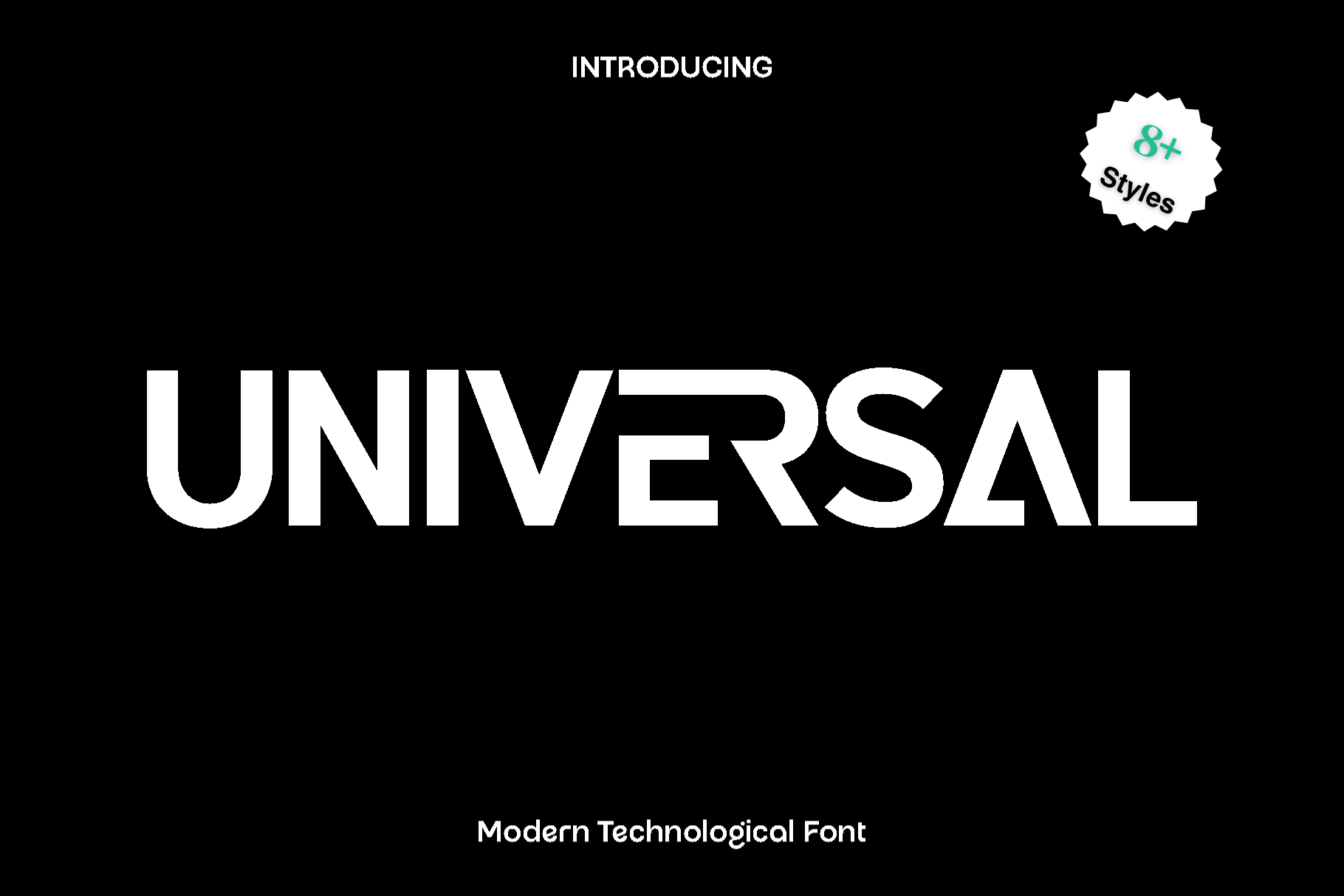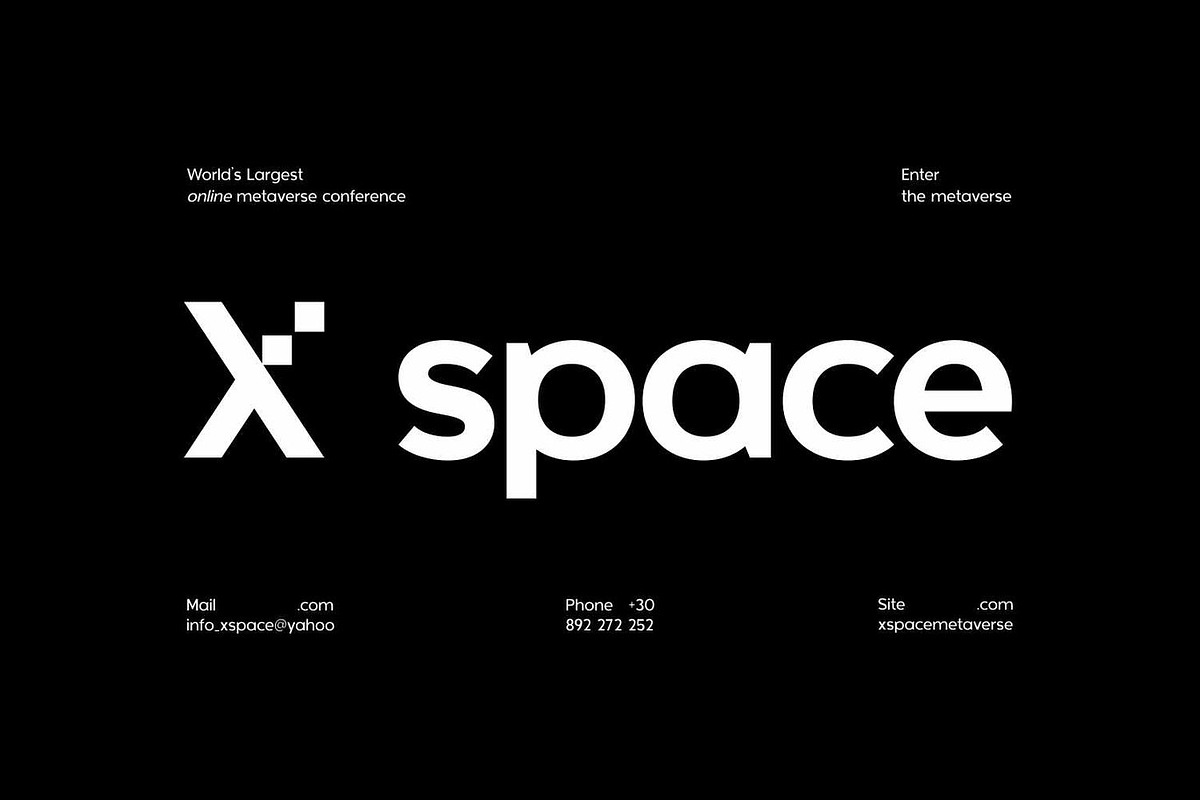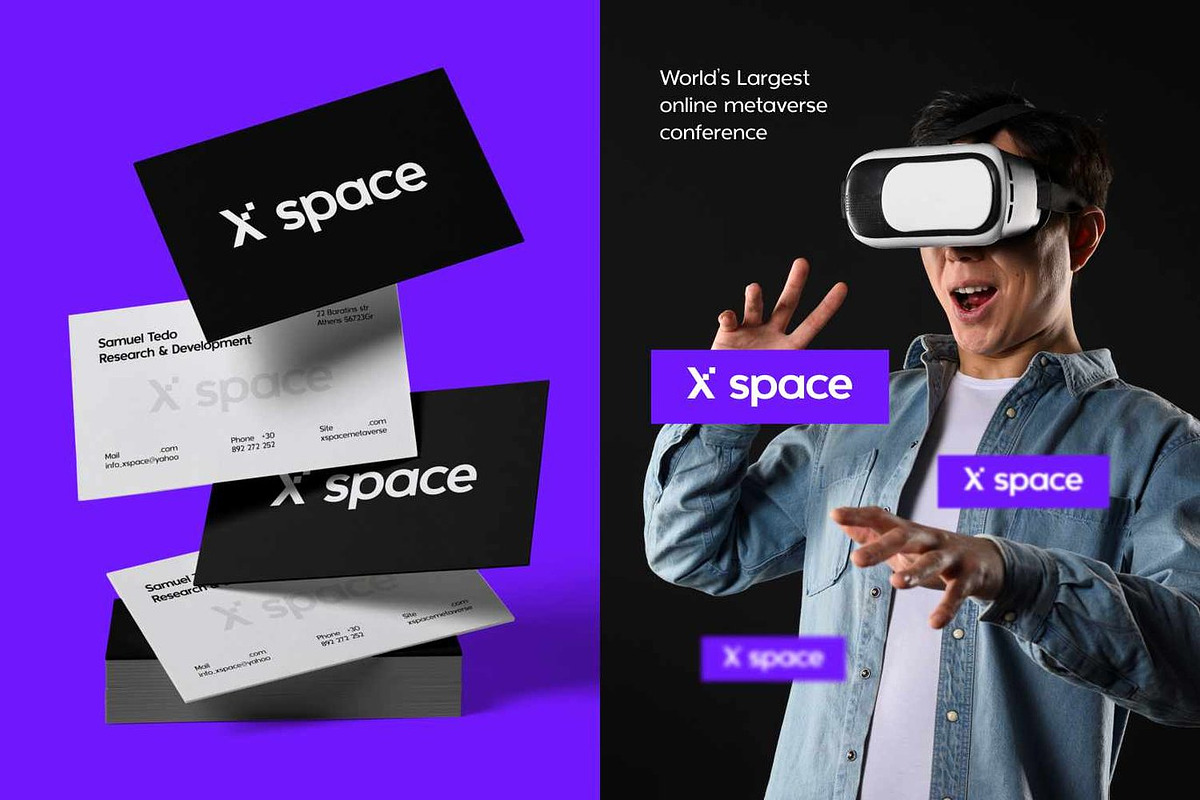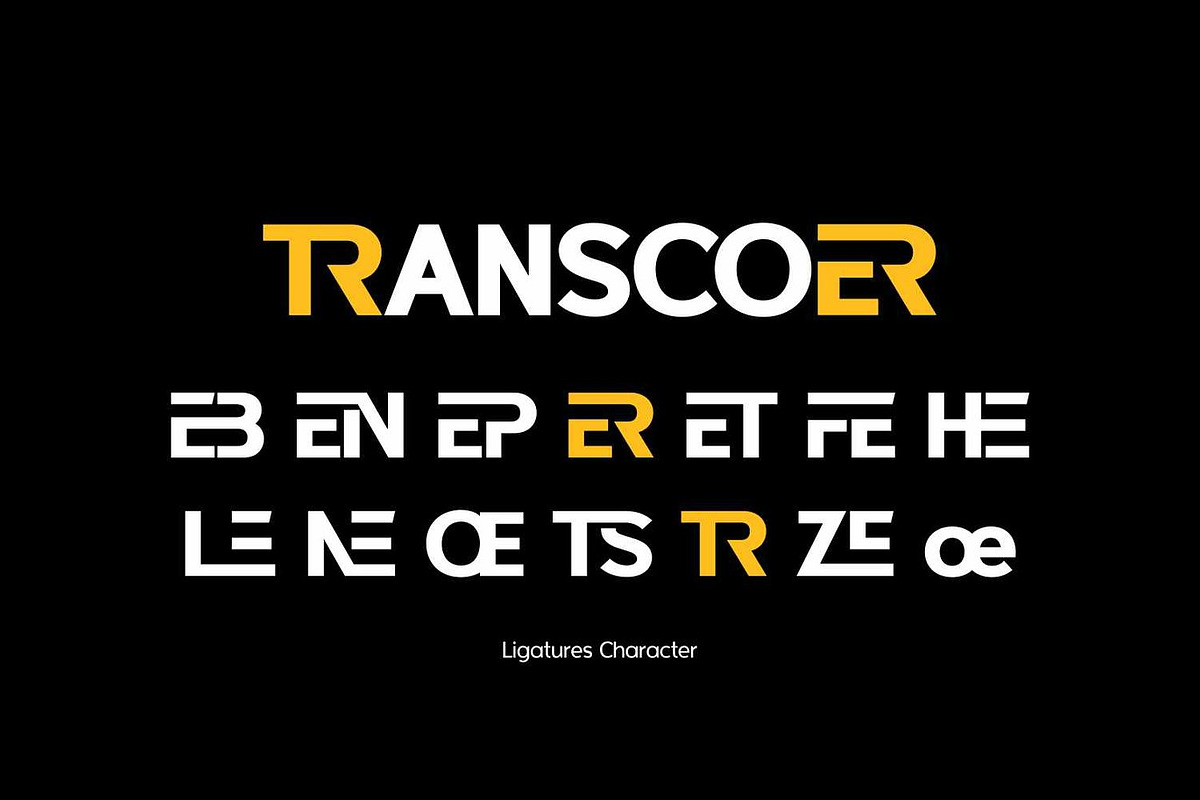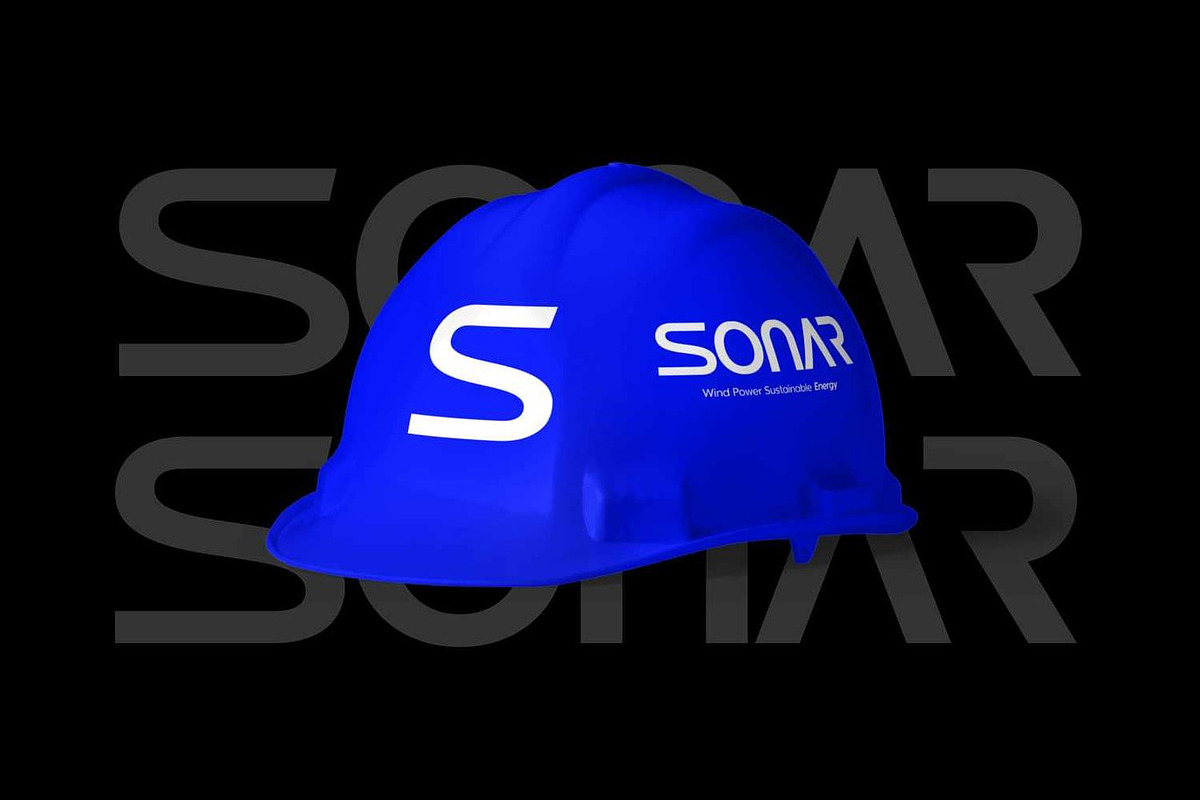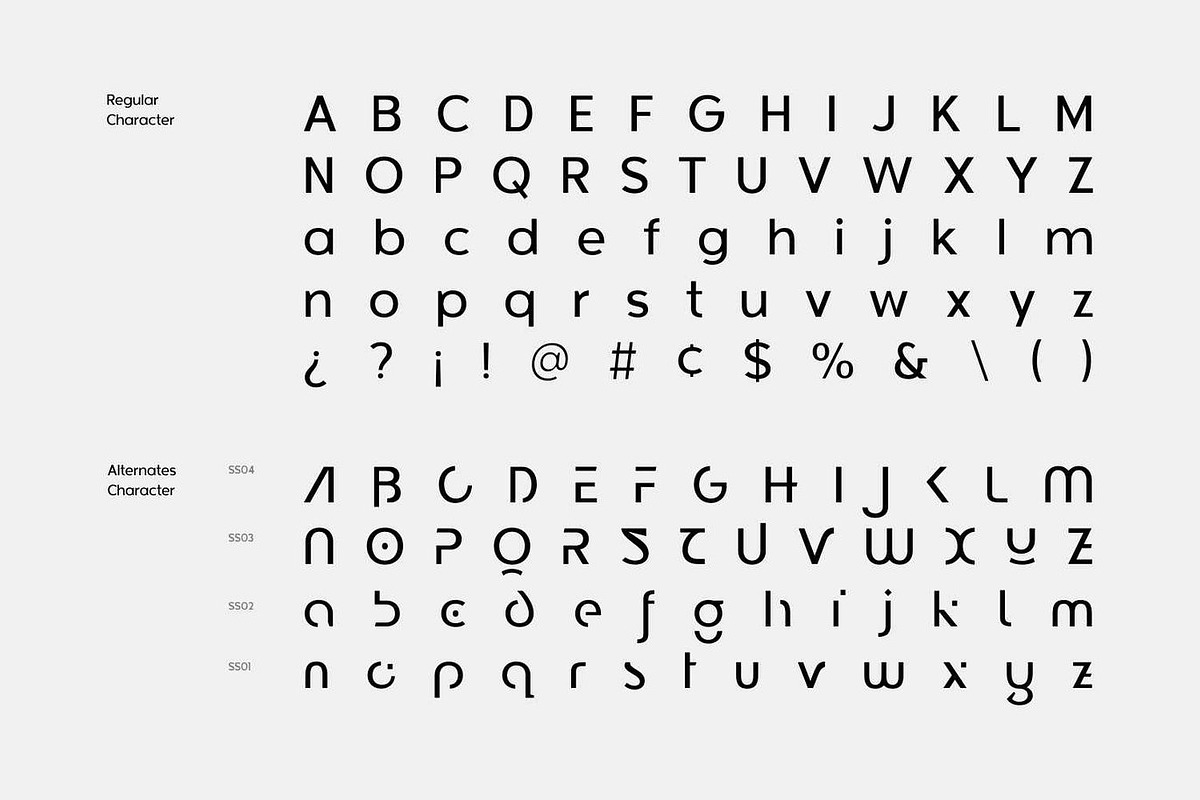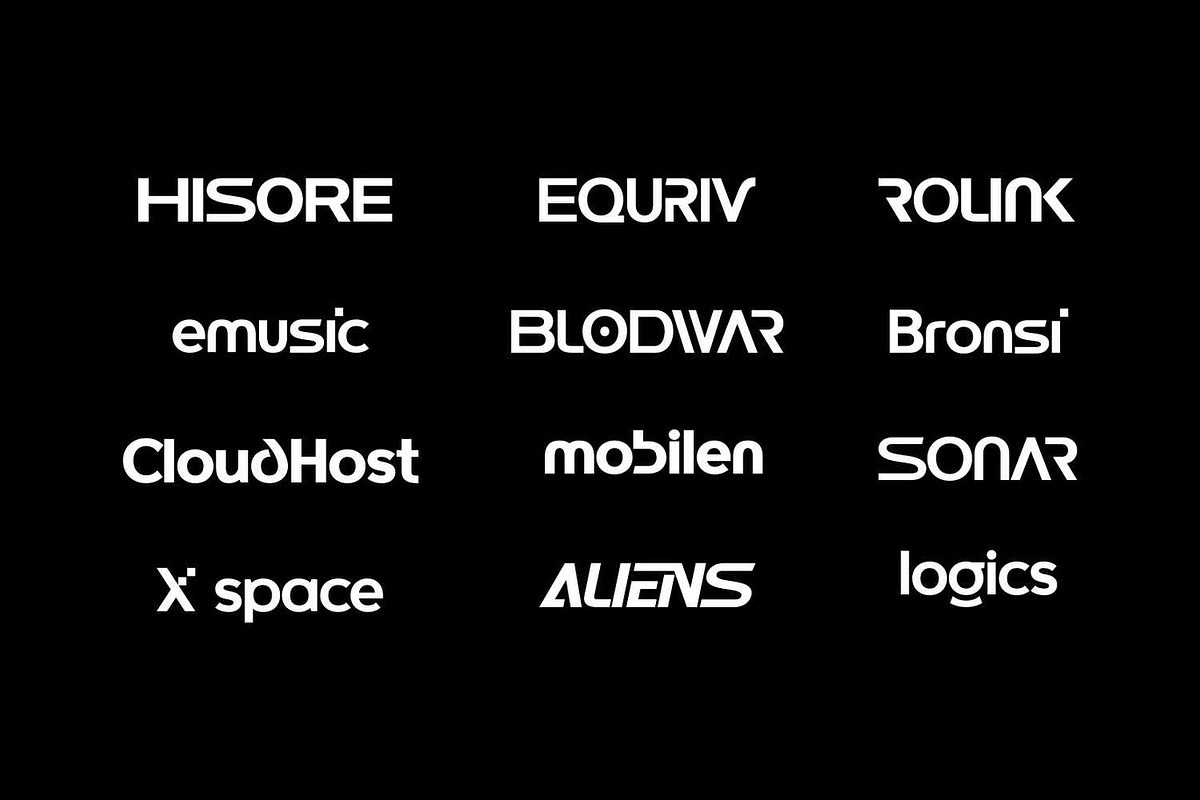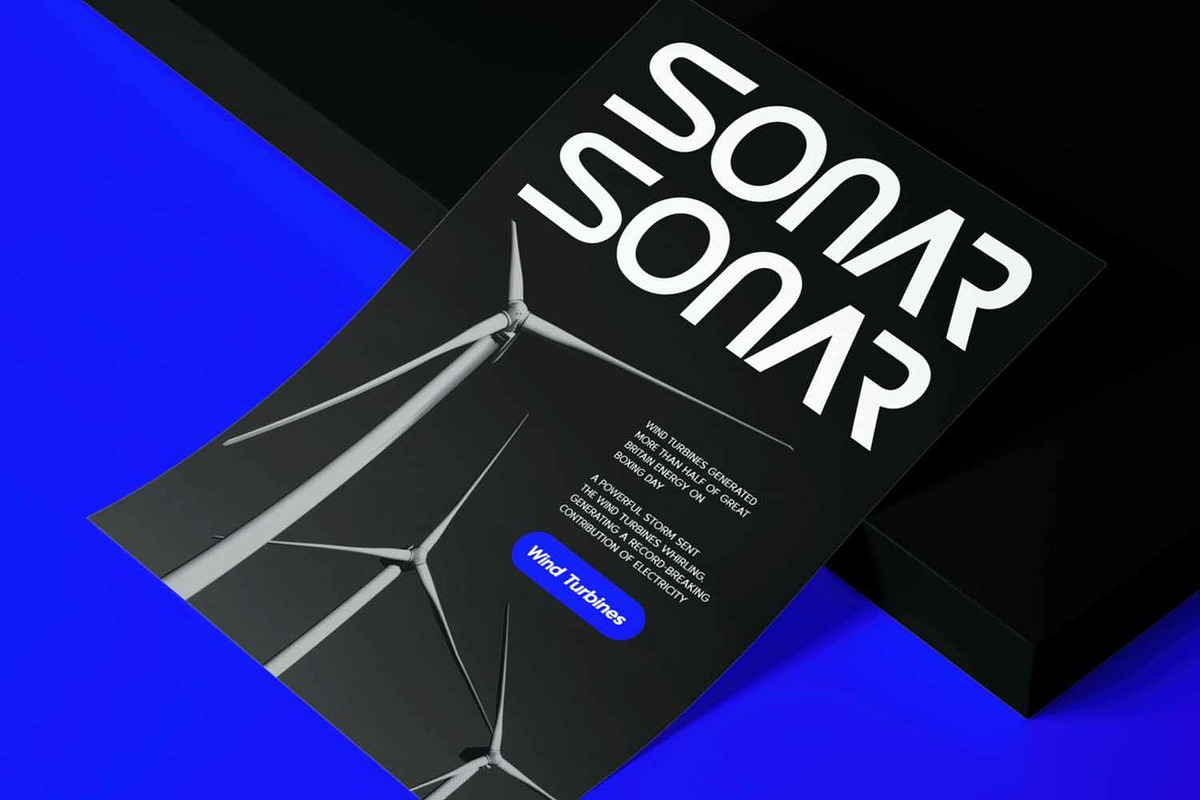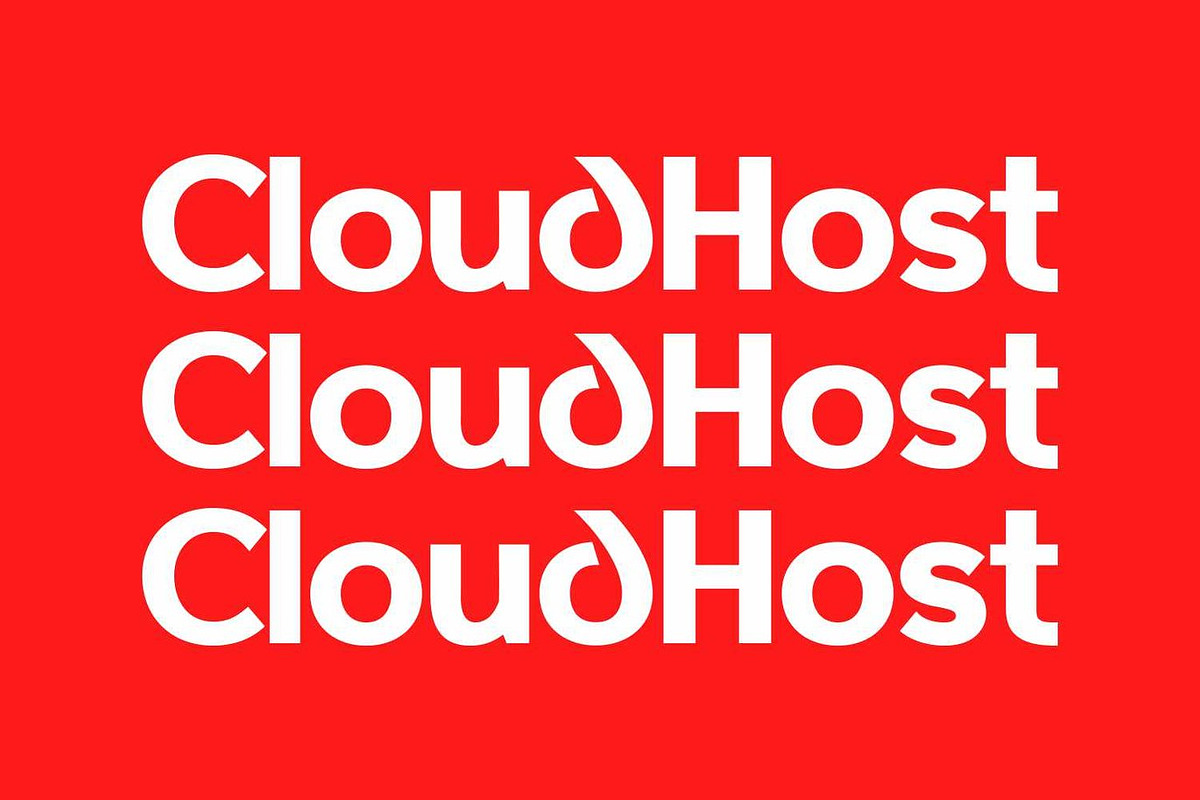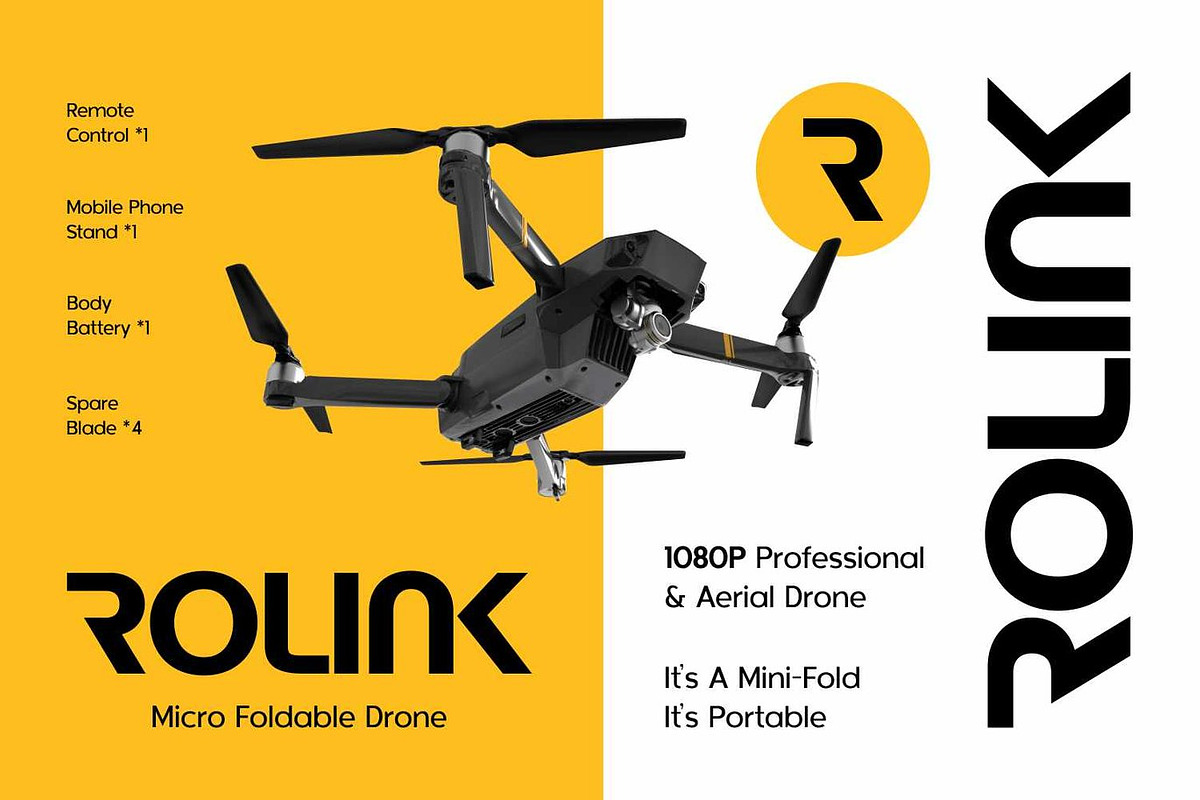
Universal - Technological Font
Universal is a dynamic sans serif typeface inspired by the bold energy of futuristic technology and competitive sports, merging precision engineering with athletic power to create a font that commands attention. Crisp geometric structures combined with forward-thinking aesthetics make Universal the perfect choice for brands that embody innovation, speed, and performance across every application.
The complete Universal family includes Medium, Semi Bold, Bold, and Extra Bold weights, each accompanied by matching italic styles (Medium Italic, Semi Bold Italic, and Extra Bold Italic), delivering exceptional typographic flexibility for creating sophisticated hierarchies and expressing dynamic movement in your designs.
Where it excels:
Sports branding and athletic brands: Fitness companies, sports teams, athletic apparel, performance gear, training facilities, and competitive leagues seeking powerful identities that communicate strength, energy, and championship caliber.
Technology and innovation: Tech startups, software companies, hardware manufacturers, AI platforms, robotics firms, and digital service providers requiring modern, authoritative typography that signals cutting-edge solutions.
Product logos and brand identity: Consumer electronics, automotive brands, gaming companies, energy drinks, and performance-focused products where typography must convey speed, power, and technical excellence.
Poster and event design: Sports tournaments, esports championships, tech conferences, product launches, festival graphics, and promotional campaigns demanding bold visual impact with contemporary edge.
Digital and web applications: Websites, mobile apps, dashboard interfaces, streaming platforms, and responsive layouts where Universal's structure ensures clarity across devices while maintaining futuristic character.
Packaging and retail: Performance supplements, tech accessories, sports equipment, gaming peripherals, and premium goods where packaging communicates innovation and competitive advantage.
Standout features:
Complete weight range from Medium through Extra Bold provides precise control over typographic hierarchy, enabling designers to establish clear information architecture while maintaining visual consistency.
Full italic family adds dynamic movement and emphasis, perfect for expressing speed, energy, and forward motion in sports marketing, tech messaging, and performance-focused communications.
Uppercase and lowercase with athletic proportions and technical precision, ensuring readability while delivering the commanding presence demanded by sports and technology applications.
Symbols and punctuation designed with matching futuristic aesthetics, maintaining visual cohesion across complex layouts, technical specifications, and branded materials.
Numerals engineered for scoreboard clarity, data visualization, technical specifications, pricing displays, and athletic statistics with precise alignment and bold presence.
OpenType features including stylistic alternates that shift between conservative tech professionalism and bold athletic expression, enabling customizable brand personalities across diverse industries.
Ligatures that maintain natural letter connections while respecting Universal's technical character, adding refinement to headlines, logos, and display applications.
Multilingual support ensuring Universal's powerful voice translates seamlessly across global markets, international competitions, and worldwide brand ecosystems.
Choose Universal when your project demands typography that combines futuristic vision with athletic power. Perfect for product logos, technology branding, sports marketing, gaming design, posters, headlines, web interfaces, magazines, packaging, and stationery, this versatile sans serif family delivers championship-level performance across all weights and styles.